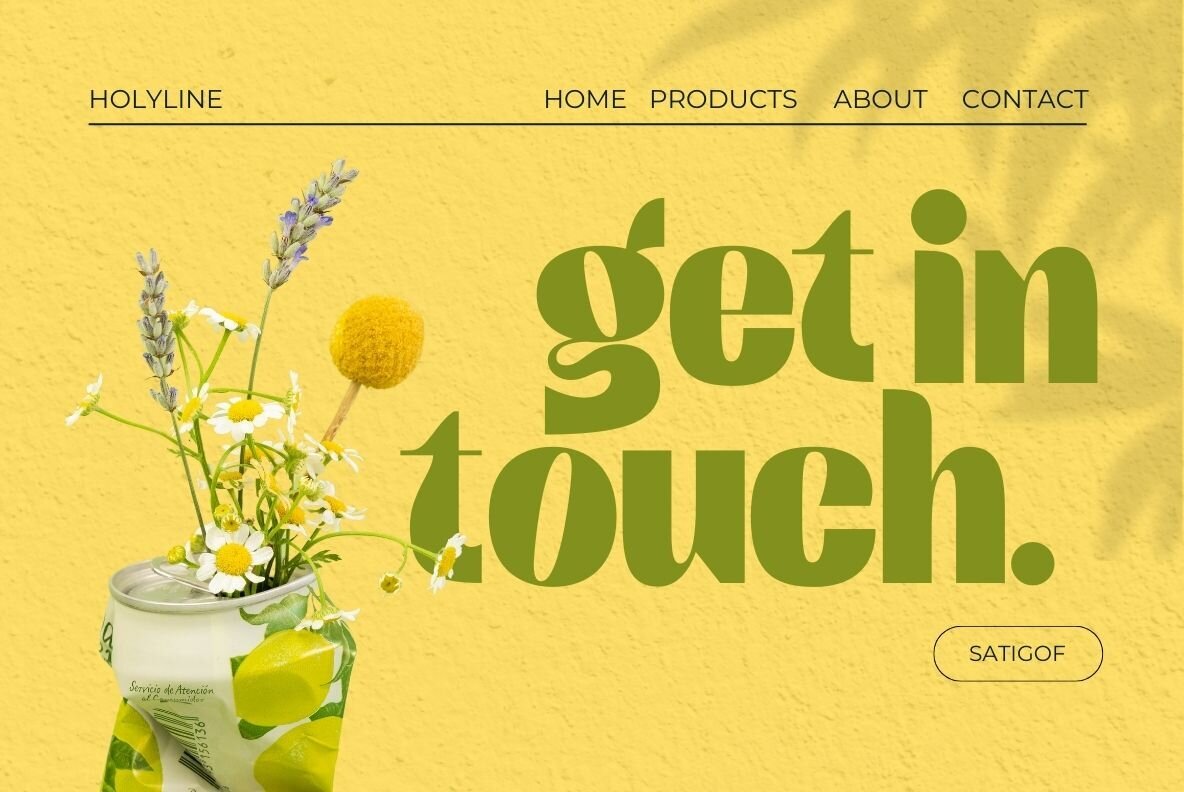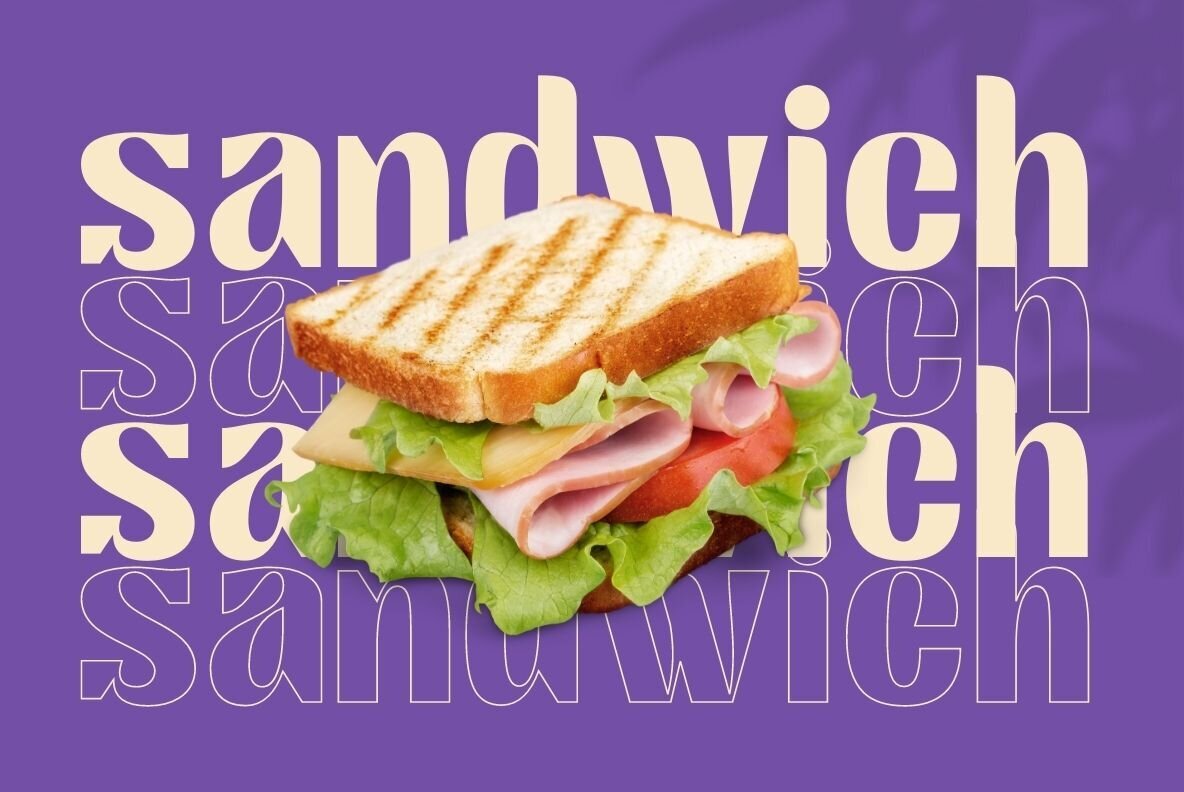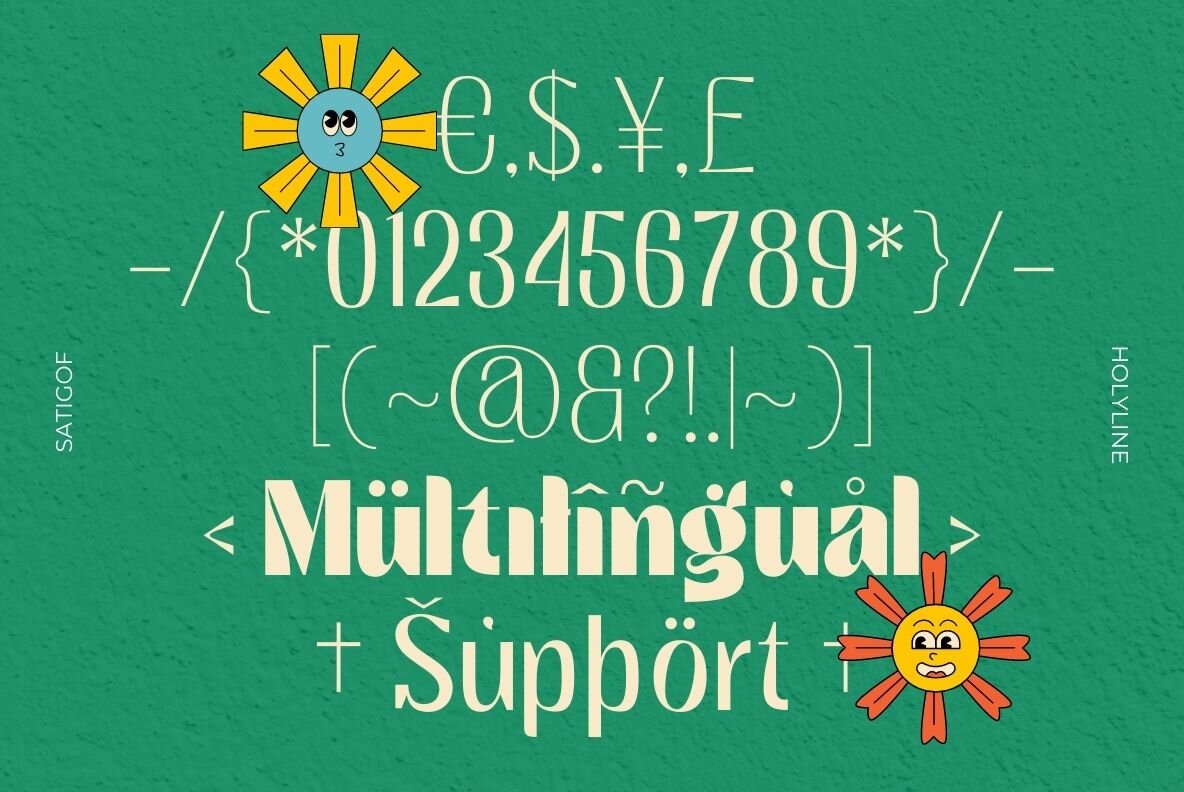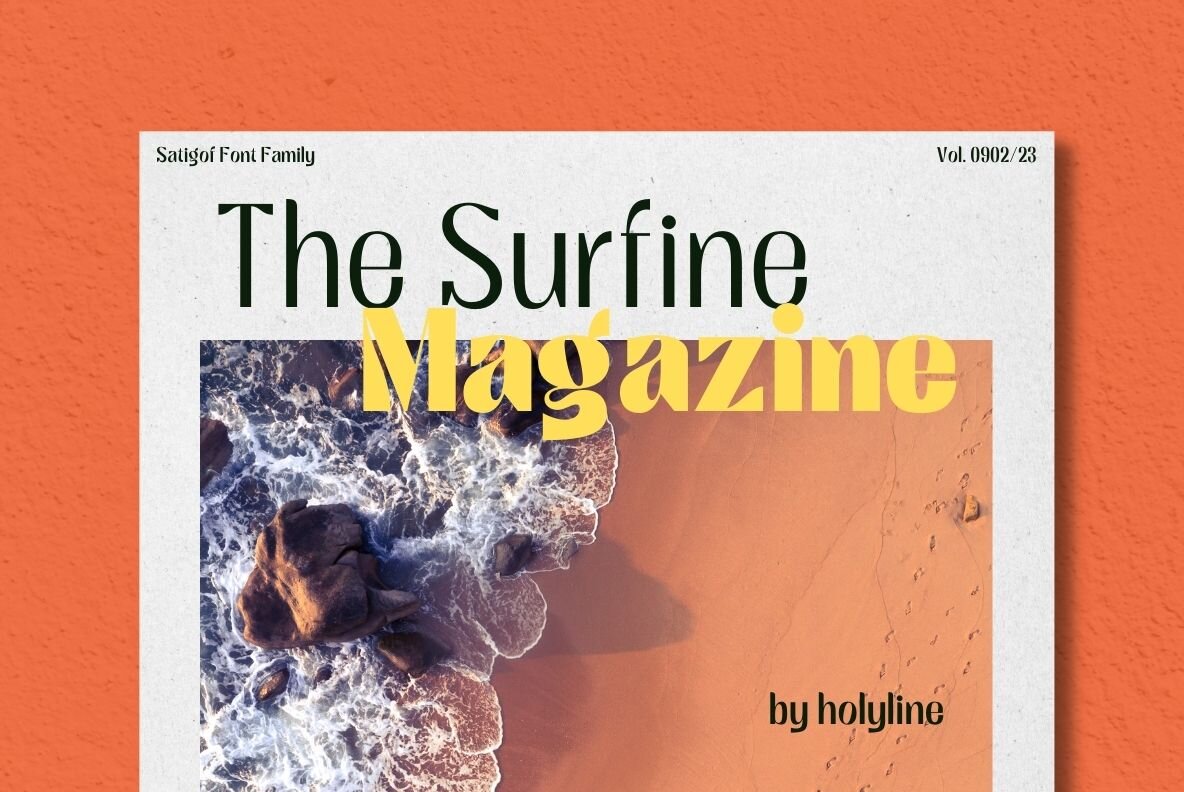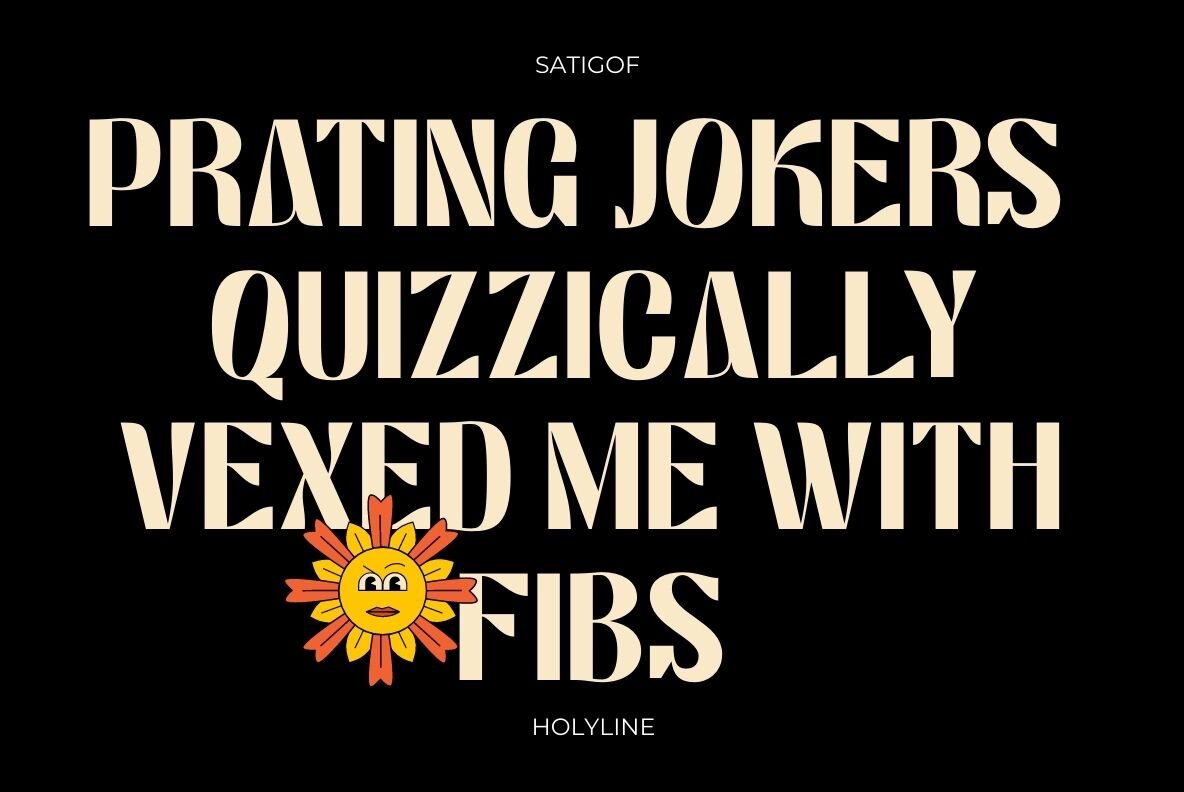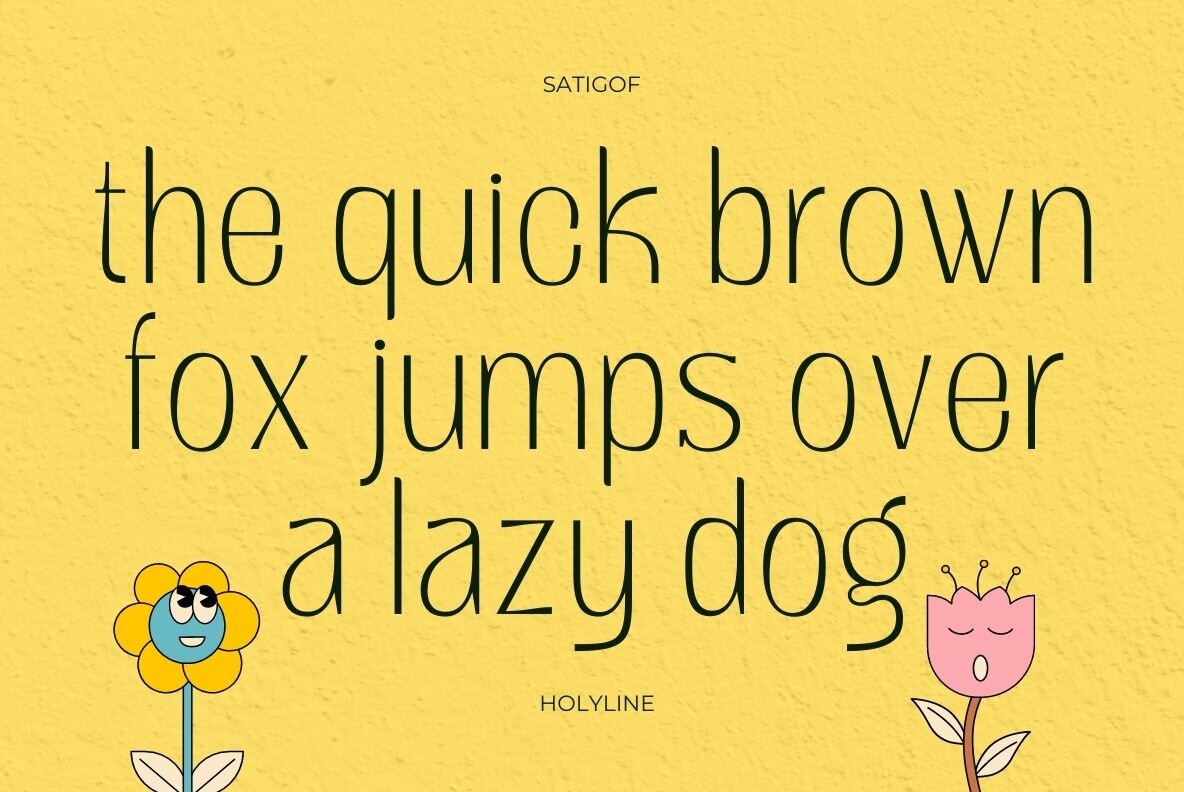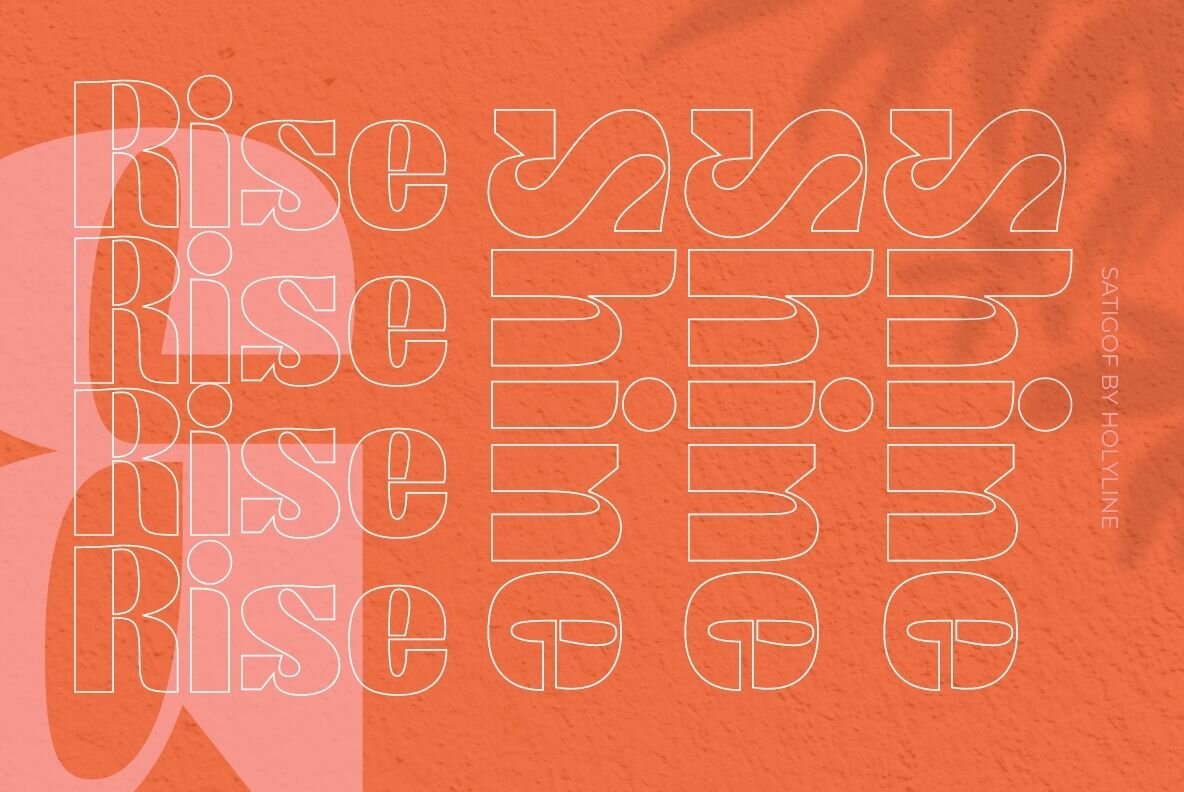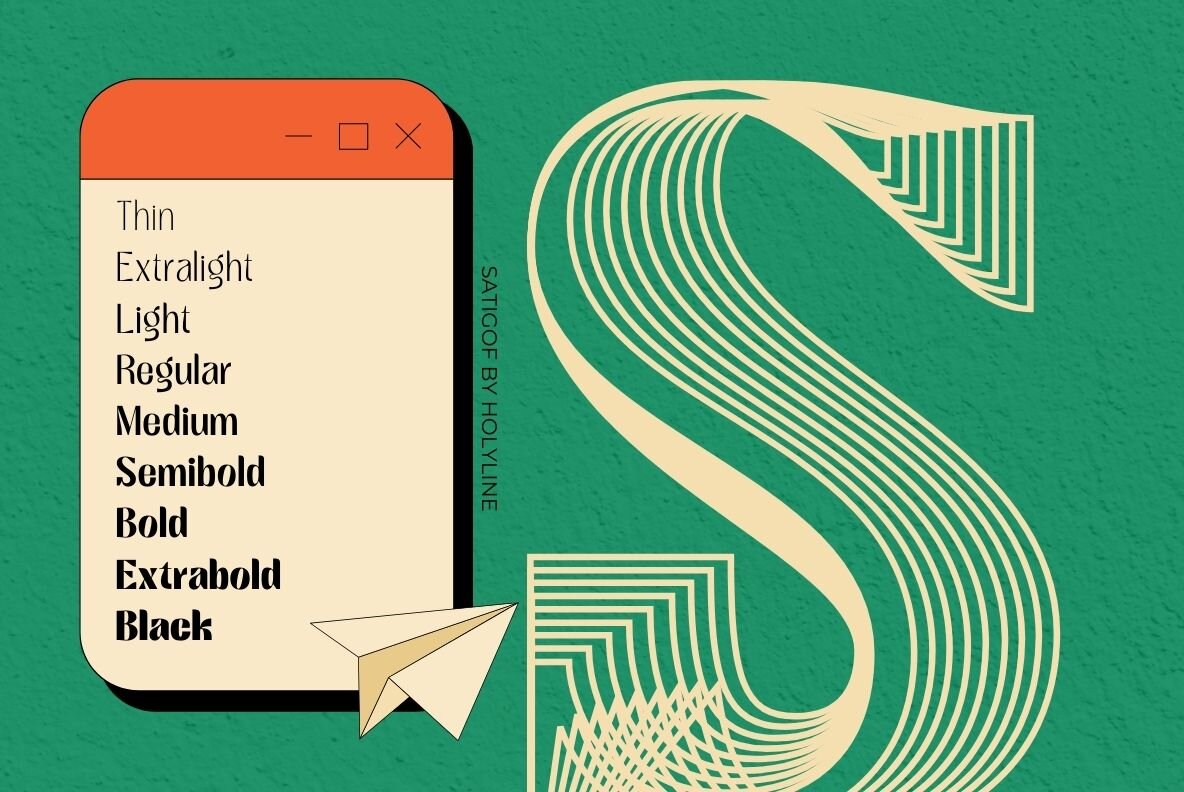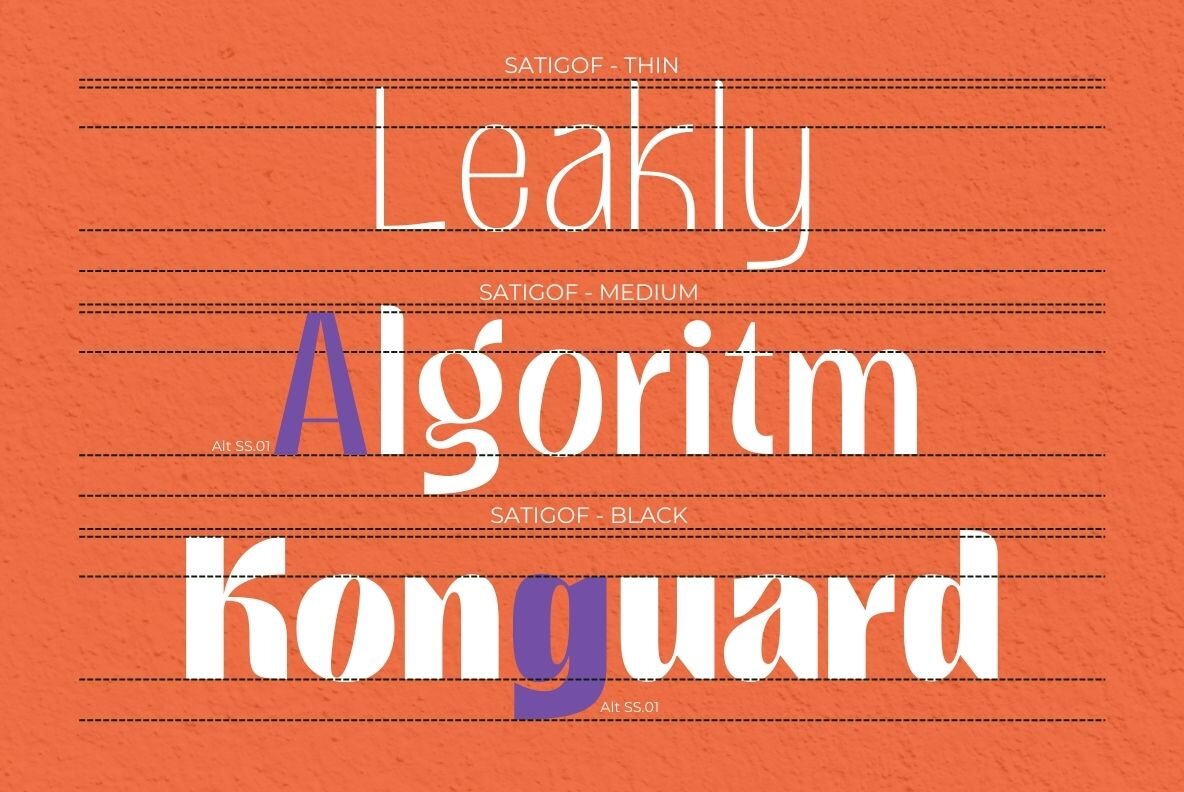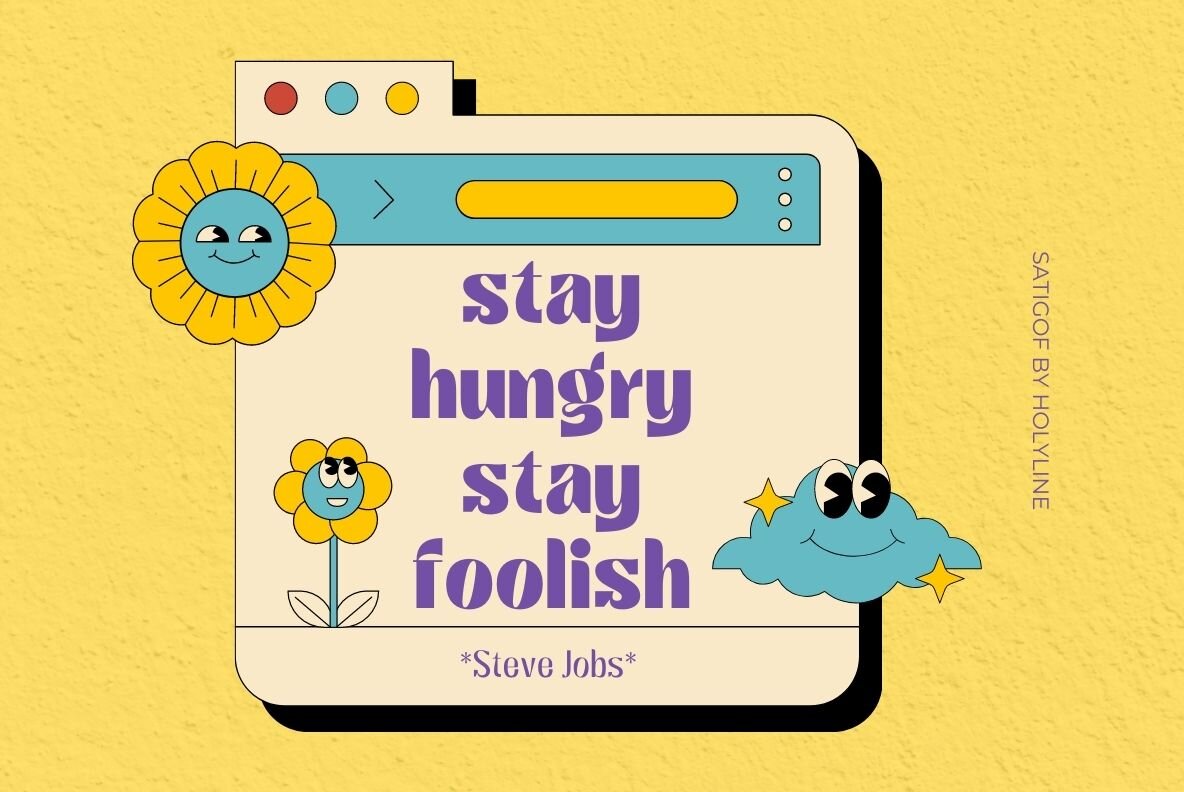
Satigof Font
Satigof by Holyline Design is a distinctive sans serif font family that exudes playfulness and uniqueness. Available in nine weights, from thin to black, this versatile typeface effortlessly complements various design styles. Transform your projects with Satigof's playful and fancy style. Combine weights for satisfying design possibilities, and explore creativity with ease. Enjoy crafting new and exciting visuals!Satigof: A Playful Sans Serif Font Family
Versatile Uses